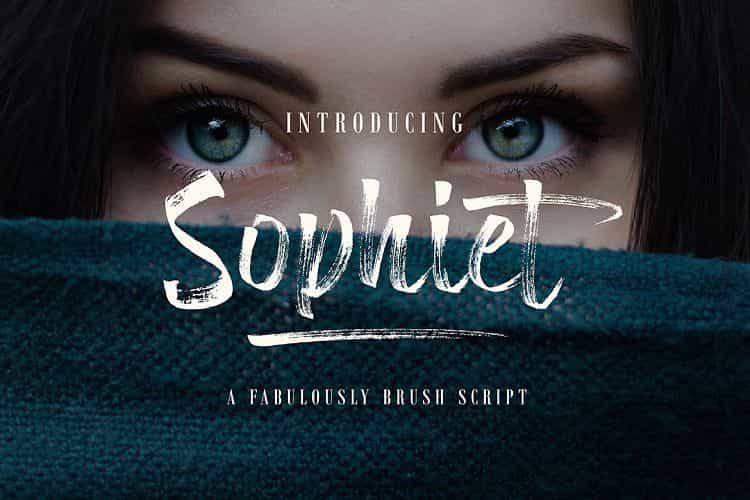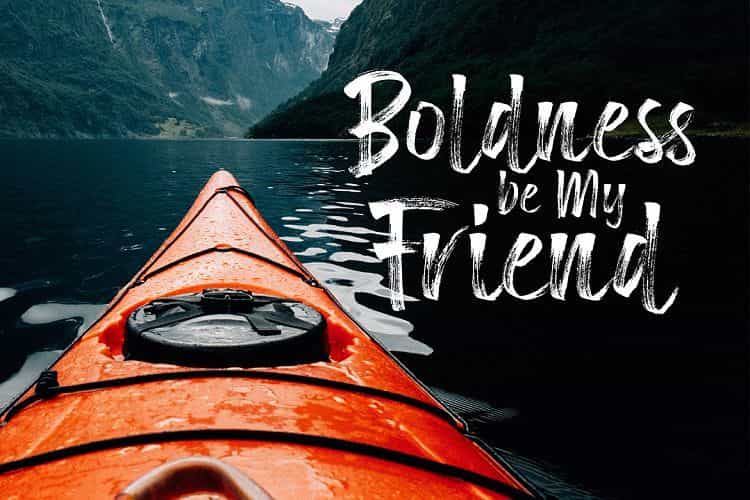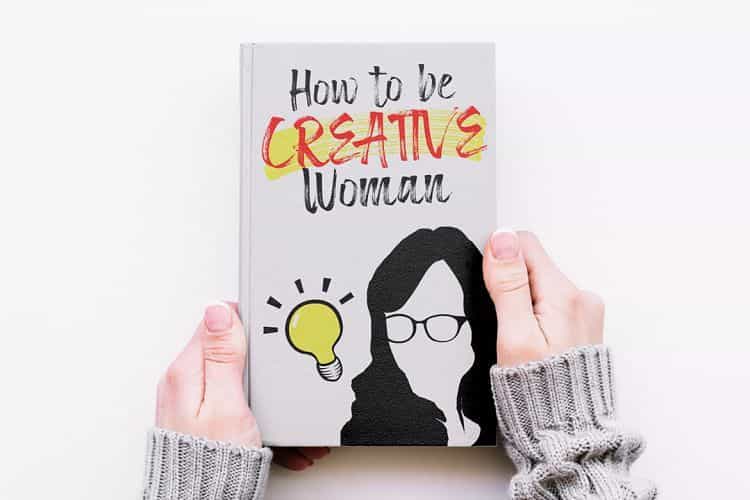
Sophiet Font – is a bold hand drawn dry brush font. it is excellent for headlines and logotype design. It is filled with automatic Contextual Alternates and Standard Ligatures that make the text alive. This font is ideal for design needs such as logo, t-shirt, heading, magazine, newspaper and website designs. Also it can be used to make quotations posters business cards etc.